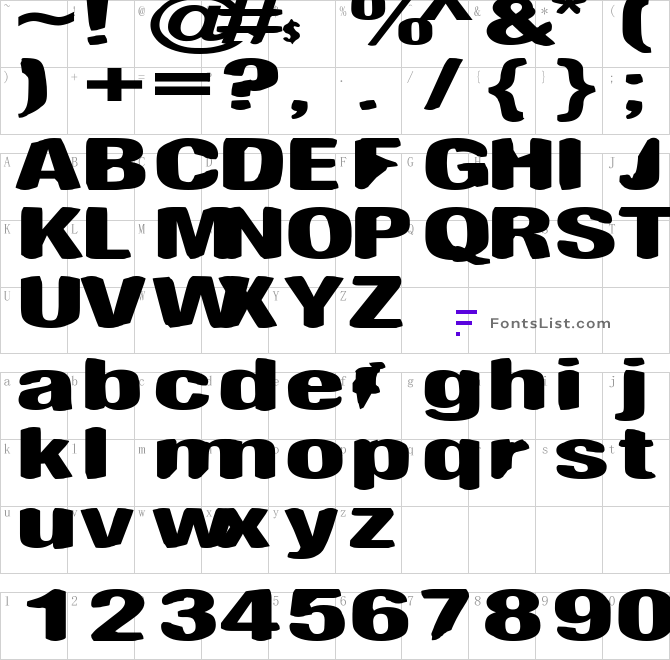
- Font Name:Antimony Funk
Antimony-Funk.ttf is a very beautiful artistic font, Antimony-Funk.ttf is widely used in the design and printing of various books and pictures,Antimony-Funk.ttf has a strong visual impact,Antimony-Funk.ttf is a commonly used font in newspapers, magazines and books, and is used in posters, e-commerce Poster design, store design, logo design, font design and other fields.Antimony-Funk.